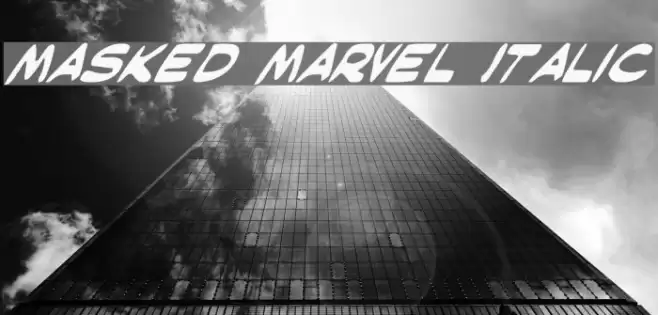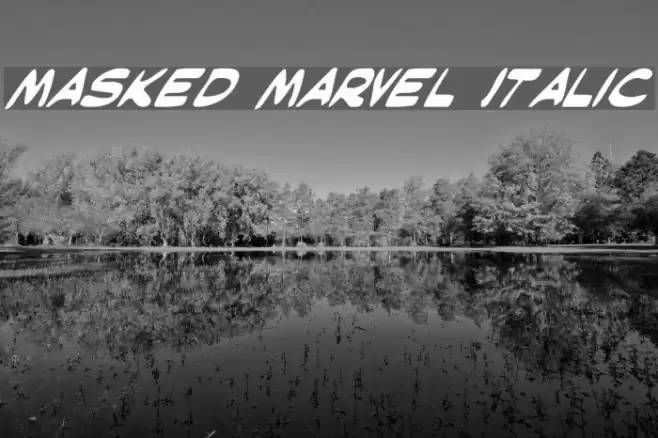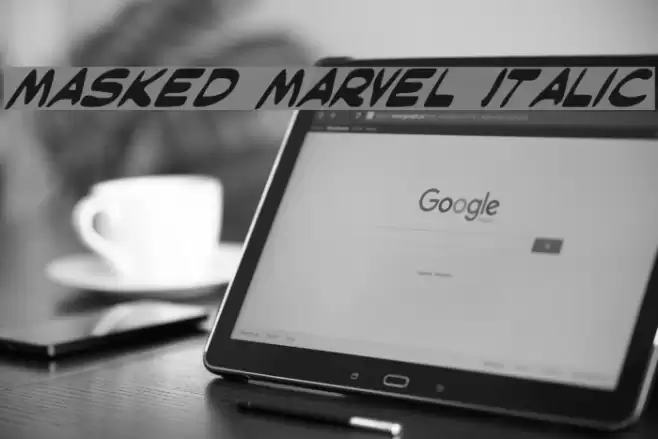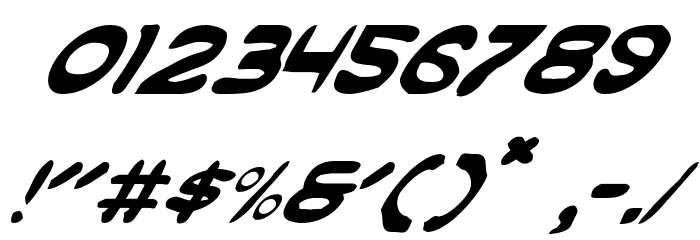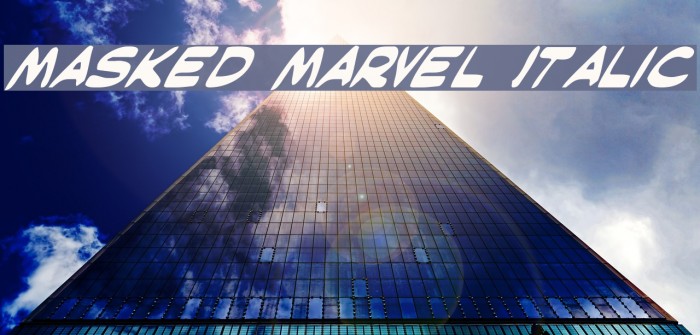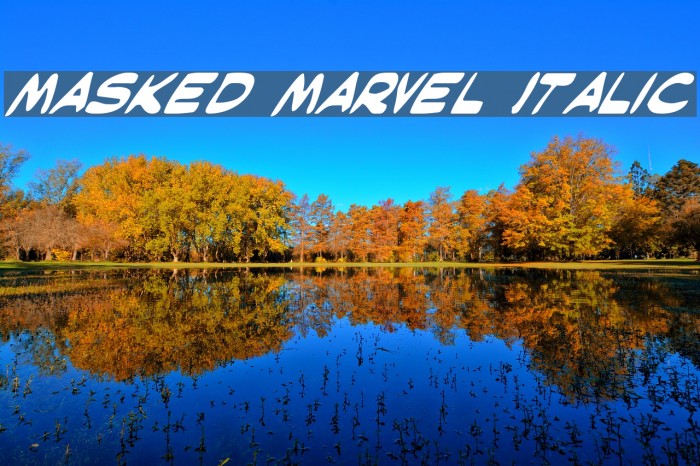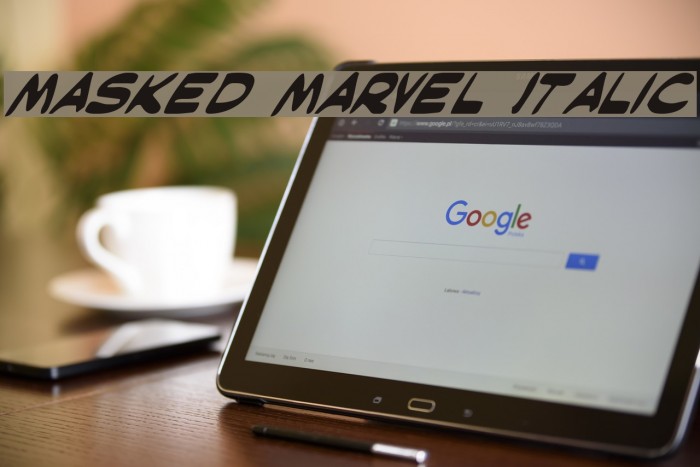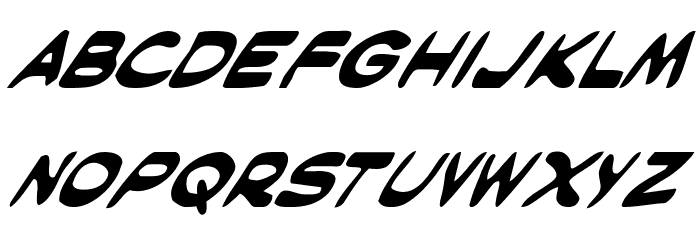
Masked Marvel Italic Font
Masked Marvel Italic Description
This font features a dynamic and energetic style with a strong italic slant, giving it a sense of motion and urgency. The characters are bold and slightly condensed, with sharp angles and smooth curves that create a sleek and modern appearance. The uppercase and lowercase letters maintain a consistent design, ensuring readability while adding a unique flair. The numerals and special characters are well-integrated, matching the overall aesthetic. This font is ideal for projects that require a bold statement, such as sports branding, action-themed posters, or dynamic logos.
A bold, italic font with a dynamic and modern style from Script fonts.
- Proposed Projects: Ideal for sports branding, action-themed posters, and dynamic logos.